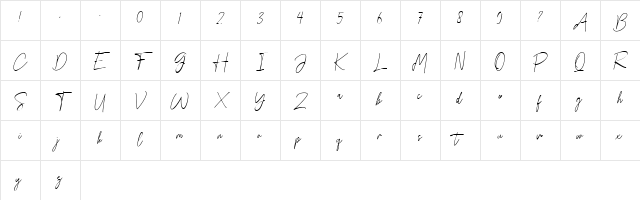
Melistany Regular Free Font
Melistany Regular
Designer: Iqbal Pauji
Design Context for Melistany
Melistany is a composed and adaptable typeface that performs quietly and consistently across a wide range of design contexts.
Pro Tip: Use Melistany in both headline and body roles to test its range before committing to a single application.